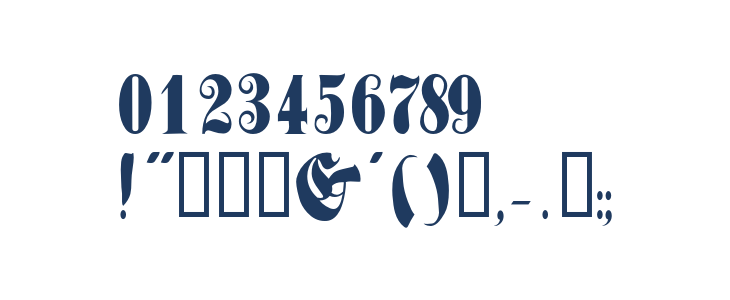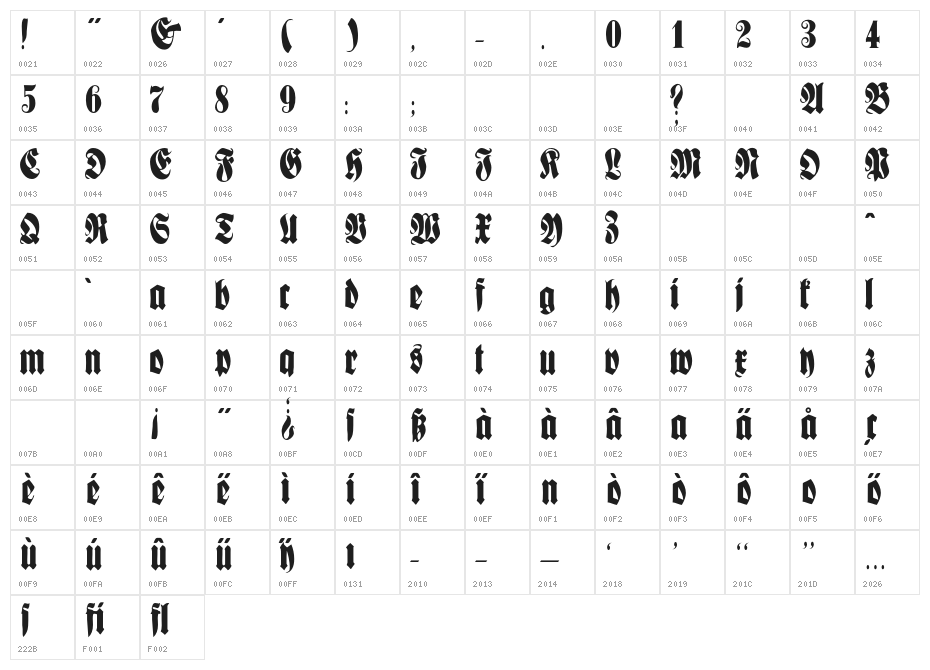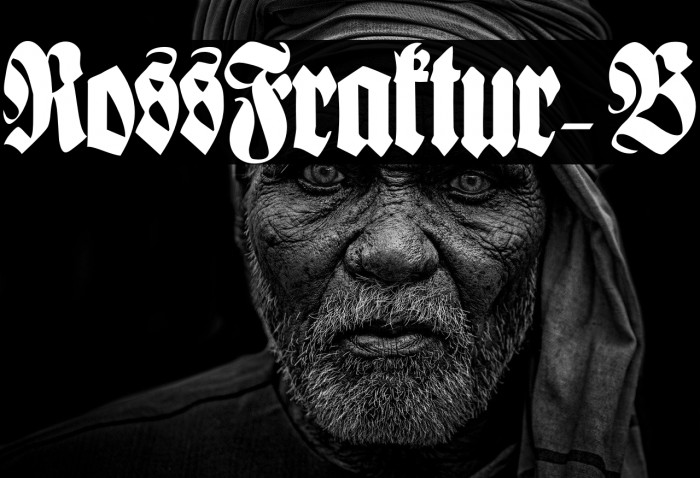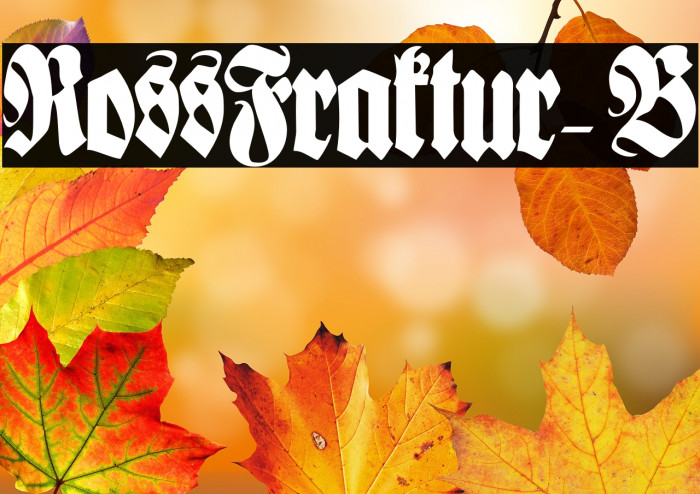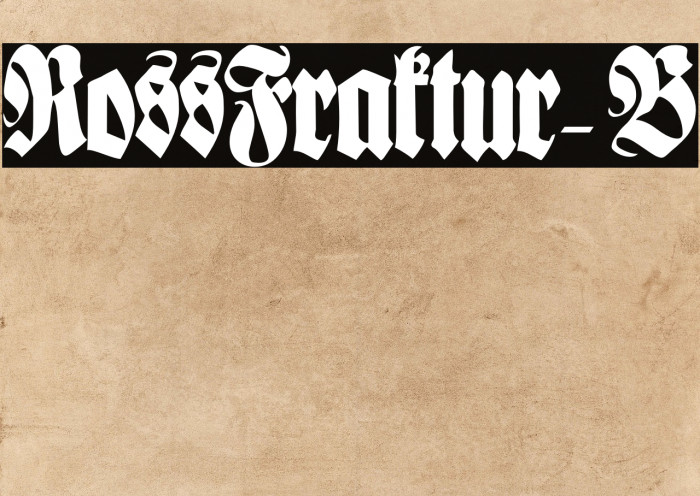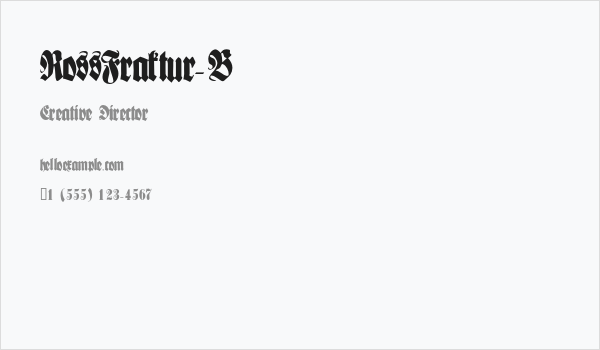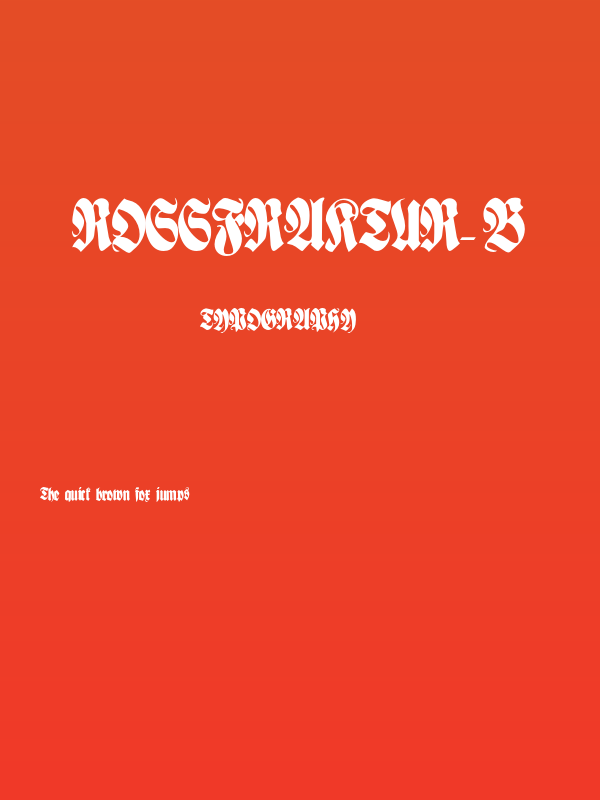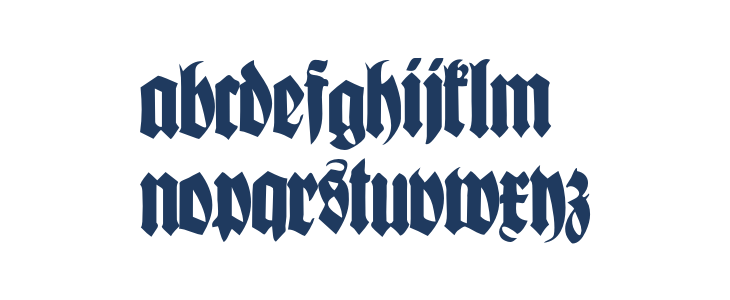
RossFraktur-B Font
RossFraktur-B Description
This font embodies the traditional elegance and intricate detailing of classic blackletter styles. It features sharp, angular lines and ornate flourishes that give it a distinctive, historical appearance. The characters are closely spaced, creating a dense and cohesive look. The uppercase letters are particularly elaborate, with extended serifs and decorative elements that enhance their visual impact. The lowercase letters maintain a consistent style, with a slightly more subdued ornamentation. Numbers and special characters are designed to match the overall aesthetic, ensuring a harmonious appearance across all text. This font is ideal for projects that require a touch of vintage sophistication and a nod to historical typography.
RossFraktur-B
| Proposed Projects | Ideal for certificates, invitations, historical documents, and branding that requires a vintage touch. |